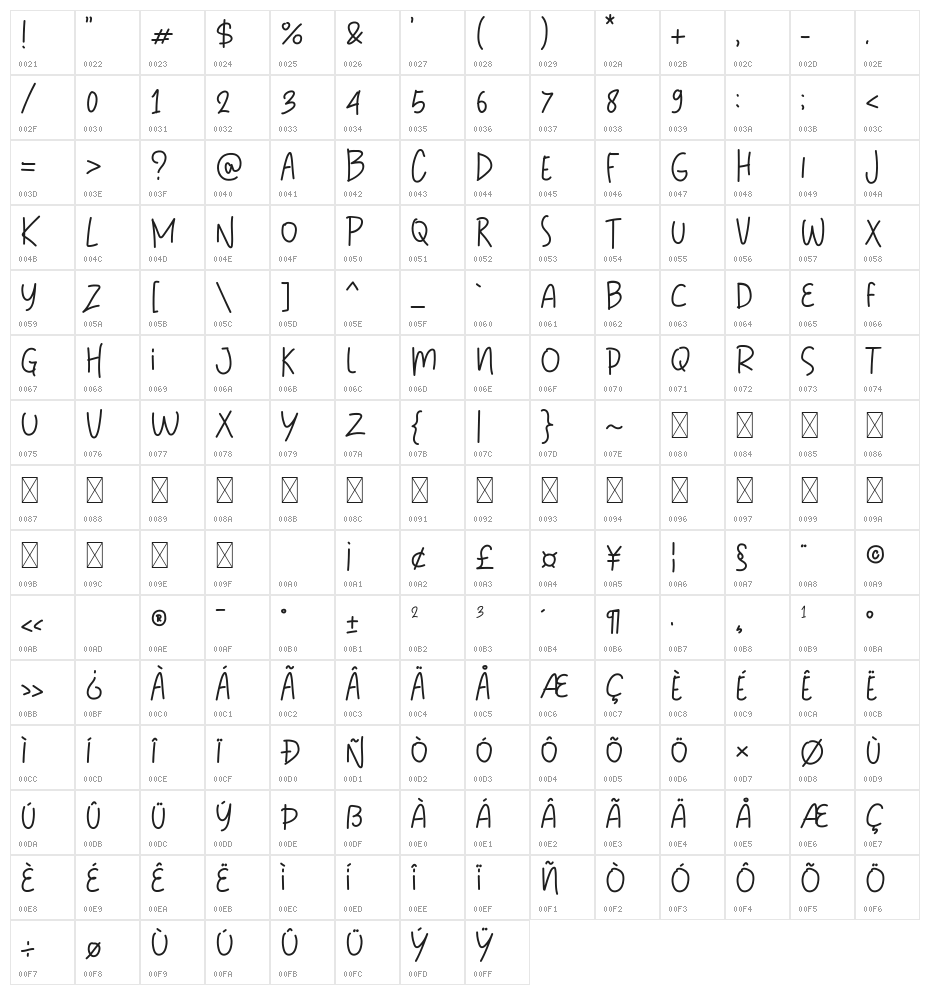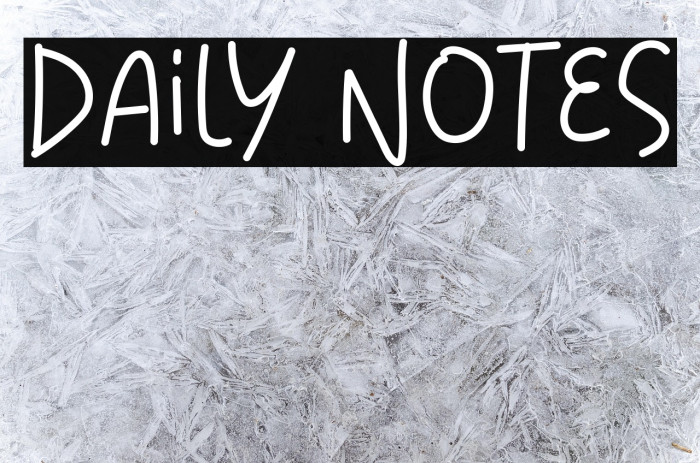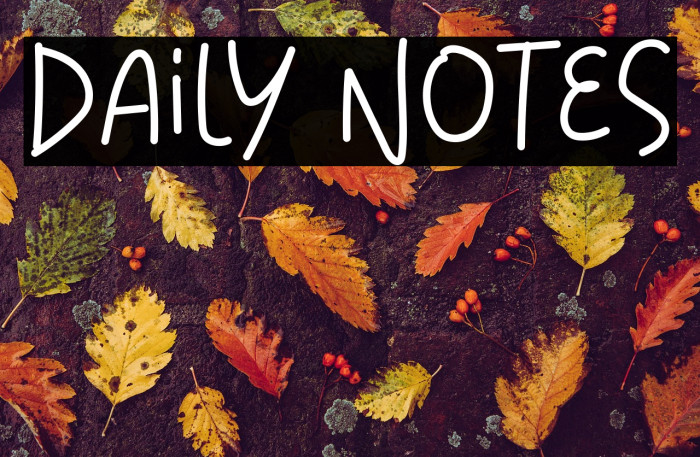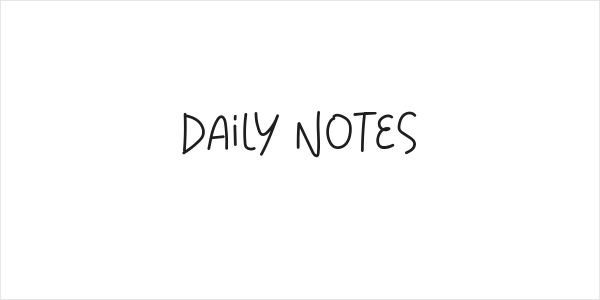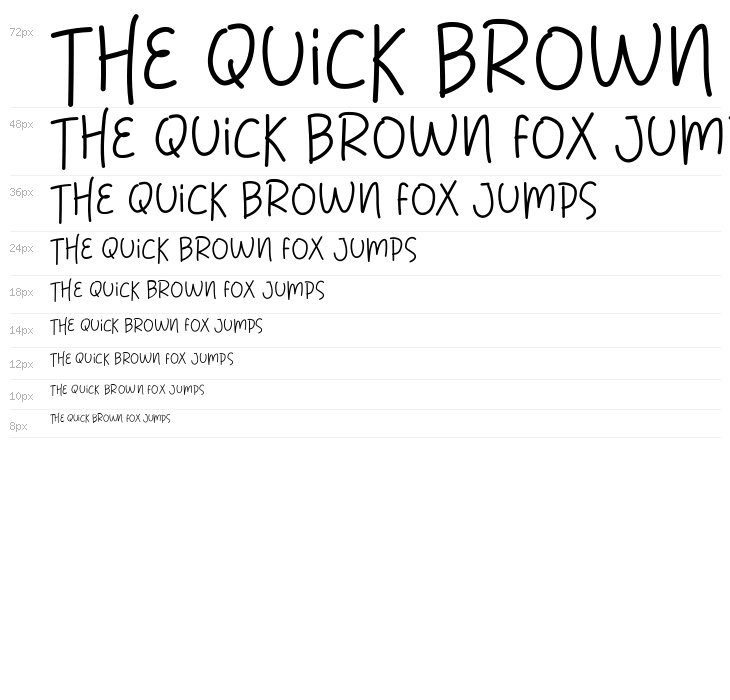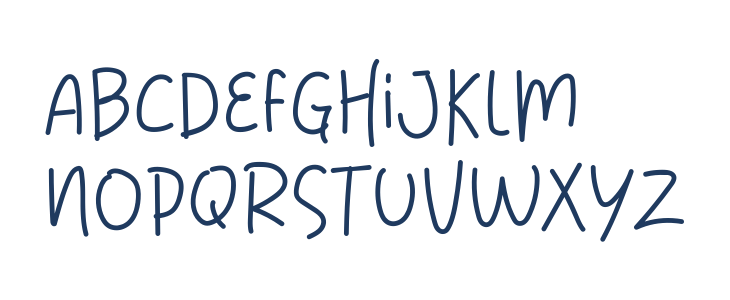
Daily Notes Font
Daily Notes Description
This font features a casual, handwritten style that exudes a sense of informality and approachability. The characters are slightly irregular, with varying stroke widths that mimic the natural flow of handwriting. The uppercase and lowercase letters maintain a consistent height, contributing to a cohesive appearance. The numerals and special characters are crafted with the same playful and relaxed aesthetic, making them blend seamlessly with the alphabet. This font is ideal for projects that require a personal touch, such as greeting cards, invitations, or informal branding materials.
| Overall Style | Casual, Playful |
| Use Case | Headlines, Informal text, Personal notes |
| Proposed Projects | Ideal for greeting cards, invitations, personal notes, and informal branding. |